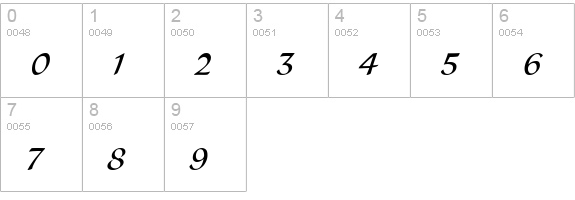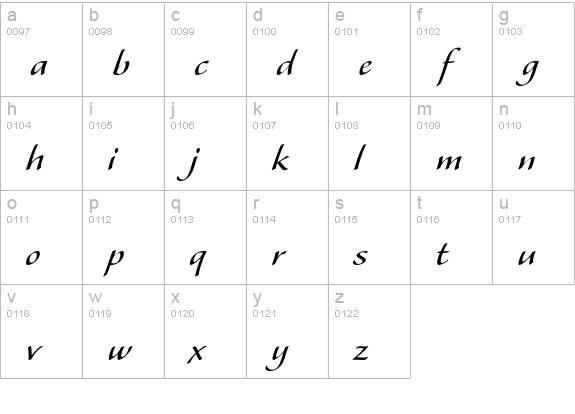
Alexa Font Details
Introducing Alexa font, a versatile and elegant typeface that exudes sophistication and modernity. With its sleek lines and clean design, Alexa font is perfect for a wide range of design projects, from branding to packaging to editorial design. What makes Alexa font even more appealing is that it is available for free download at FontsMarket.com. Yes, you read that right - this stunning font can be yours at no cost, allowing you to elevate your projects without breaking the bank. Whether you're a seasoned designer looking for a fresh new font or a novice designer exploring different typographic styles, Alexa font is a must-have in your font library. Download it today and unleash your creativity with this beautiful and free typeface.